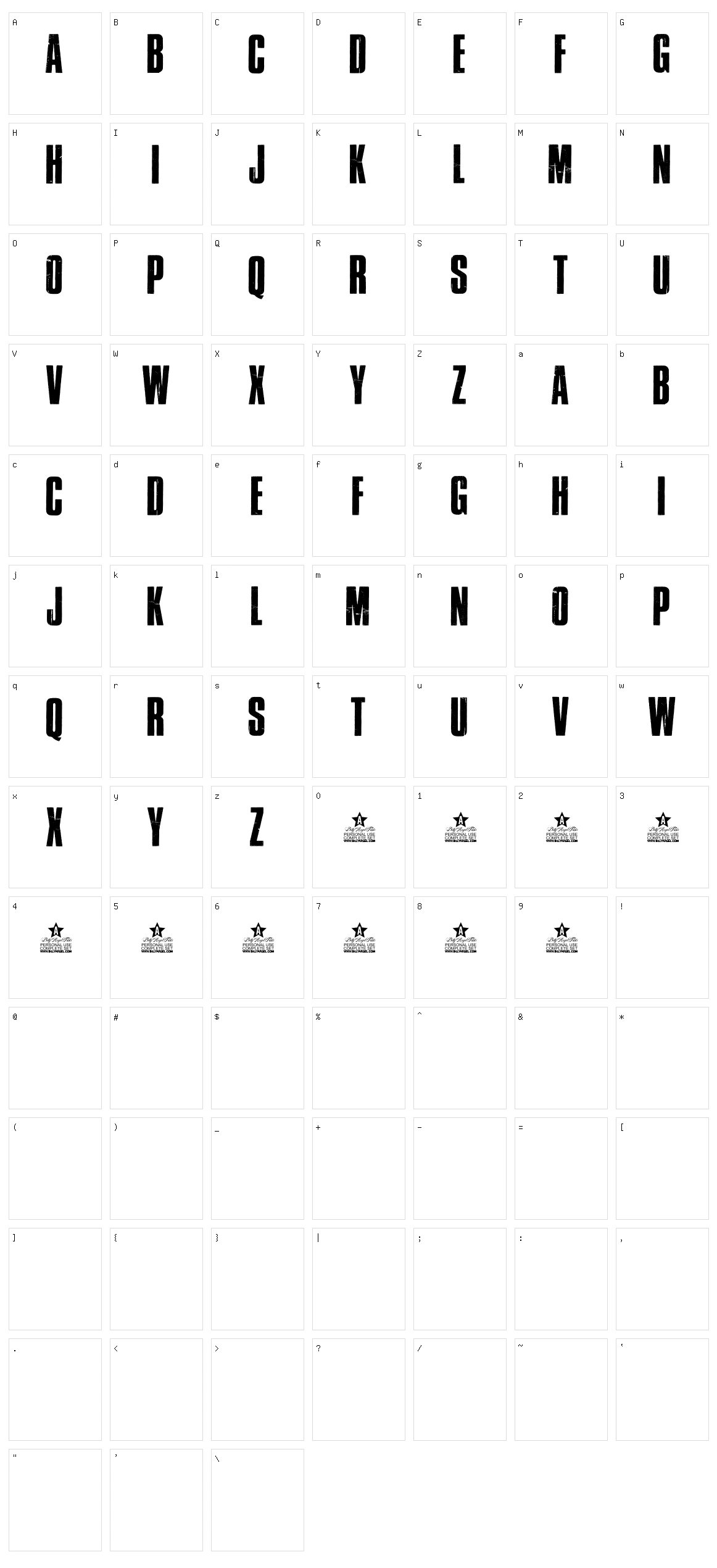
The free font Cross Town is carefully designed by Billy Argel Fonts ®, showcasing a thoughtful balance of creativity and usability and falls under the Eroded font style. When you download the ZIP file, it contains only 230.98 KB of font files, making it lightweight and quick to download. Please review the license details below to understand permitted usage and distribution rights. If license information is not available, we recommend using this font for personal projects only or contacting the author directly for commercial usage permissions.